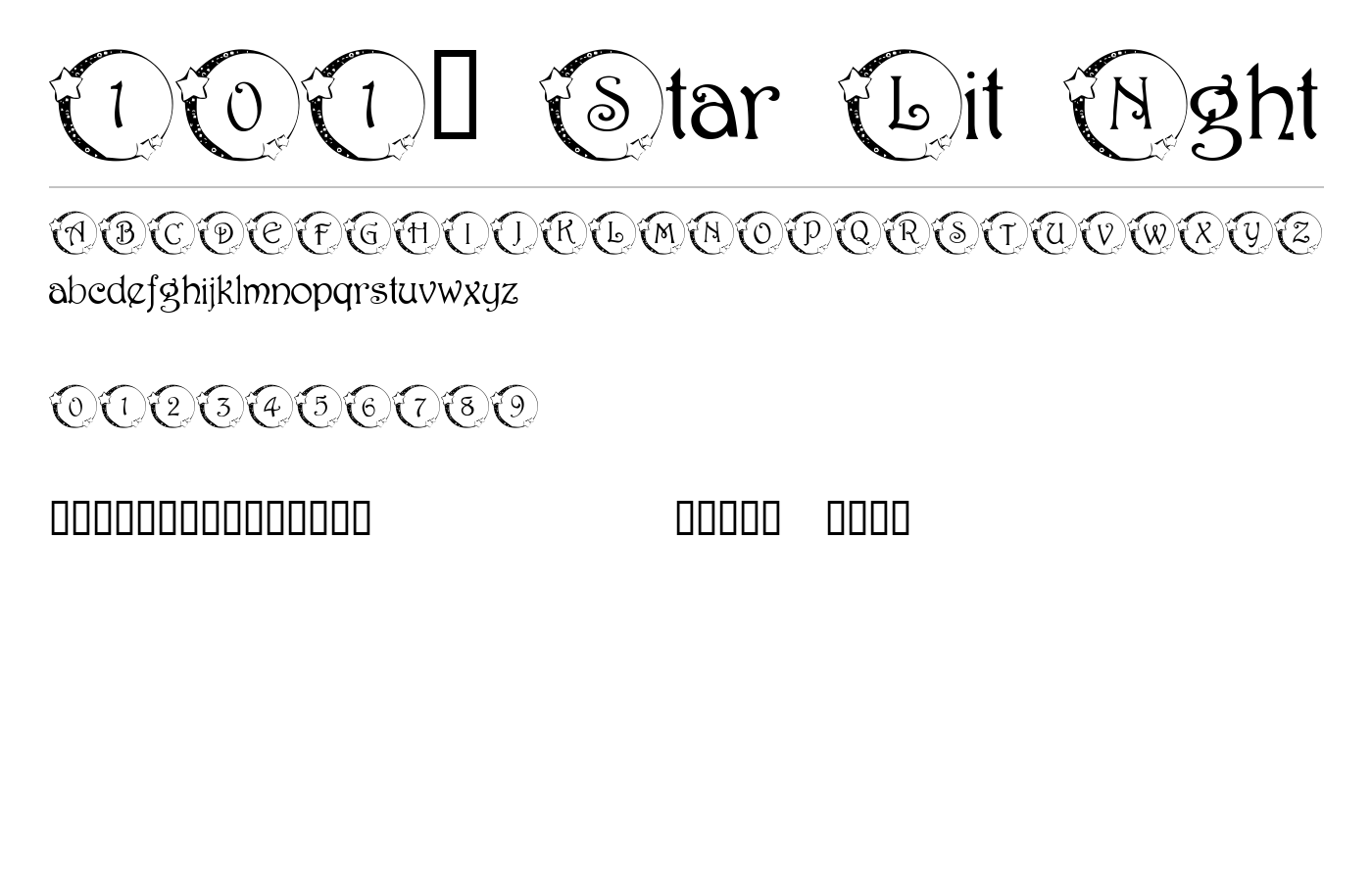
101! Star Lit Nght is a whimsical serif font with playful, decorative letterforms that feature delicate curves and slight flourishes, giving it a storybook charm. Its light weight and moderate contrast make it ideal for creating a magical, vintage atmosphere perfect for children’s books, greeting cards, or fantasy-themed designs. The font’s unique stars and circular frames add a fun and imaginative touch, making it well-suited for creative branding and festive packaging.
101! Star Lit Nght Font
About 101! Star Lit Nght Font